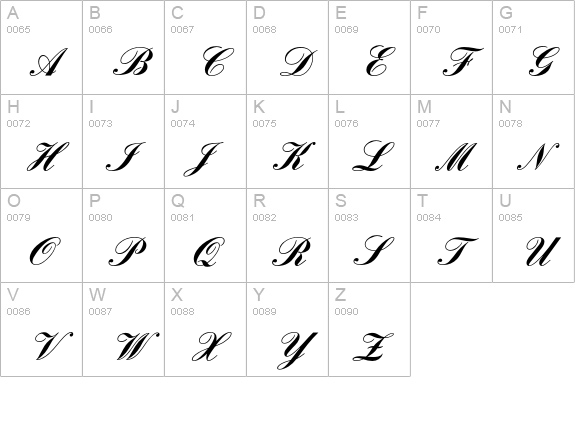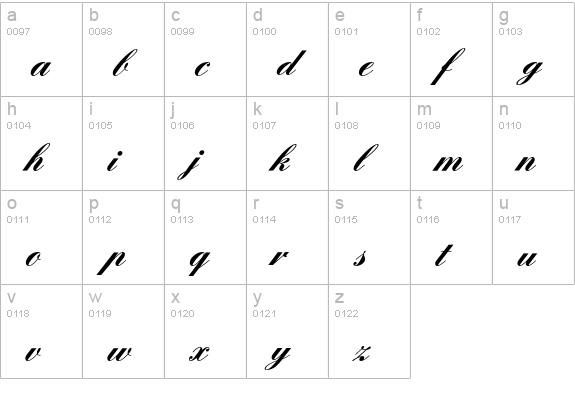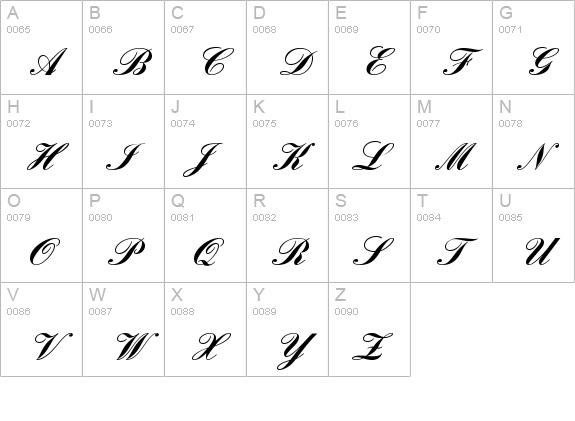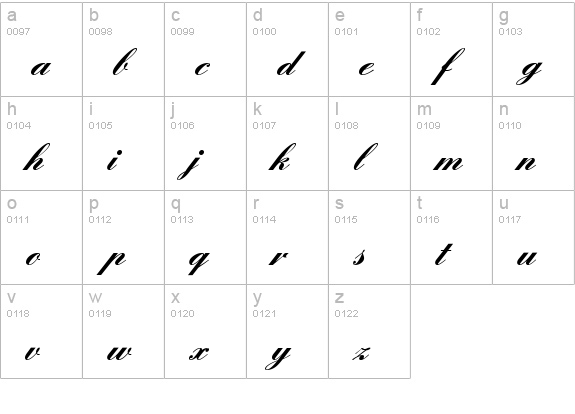
EnglishScriptEF-Bold Font Details
EnglishScriptEF-Bold is a strong, high-contrast variant in the EnglishScriptEF typeface family \xE2\x80\x94 well suited to headlines, attention-grabbing titles, and strong calls-to-action.
EnglishScriptEF-Bold is a stylish and elegant font designed for making a bold statement in your projects. With its sleek and modern design, this font is perfect for adding a touch of sophistication to any design. The bold strokes and intricate details of EnglishScriptEF-Bold make it stand out and grab attention. What makes EnglishScriptEF-Bold even more appealing is that it is available for free download at FontsMarket.com. This means you can easily access this beautiful font and use it in your projects without any cost. Whether you are working on a branding project, invitations, posters, or any other design, EnglishScriptEF-Bold is a versatile font that will elevate your work to the next level. Download EnglishScriptEF-Bold today and add a touch of elegance to your designs.